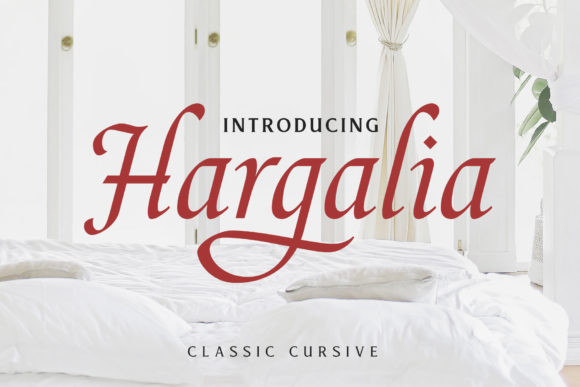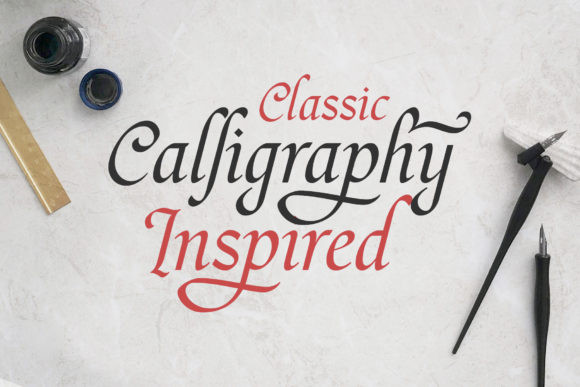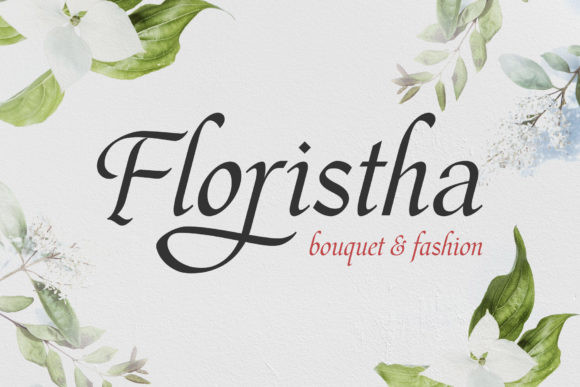
Hargalia is a gorgeously unique script that feels fresh & fun. Fall in love with its unique charm, and turn any design project into a true standout!
Hargalia Font